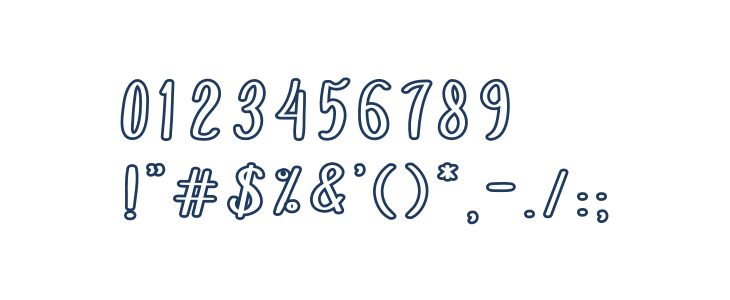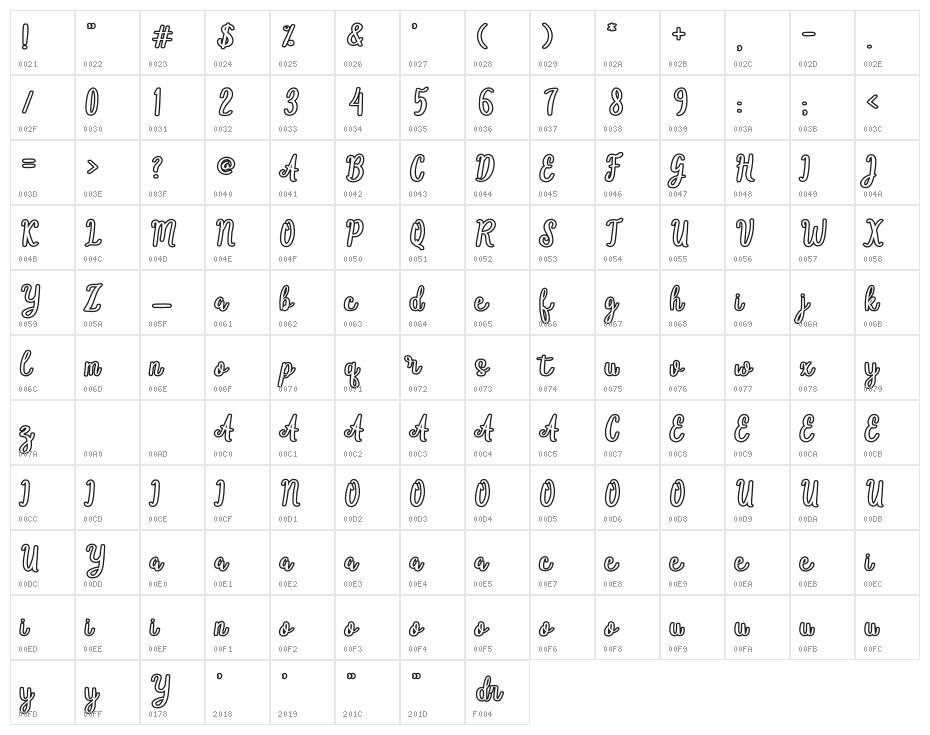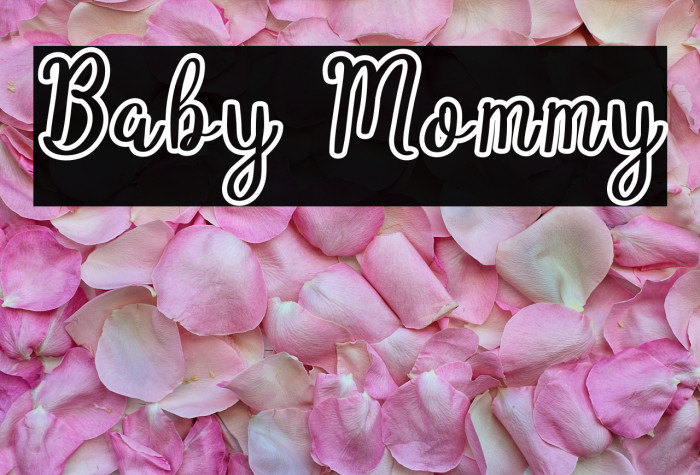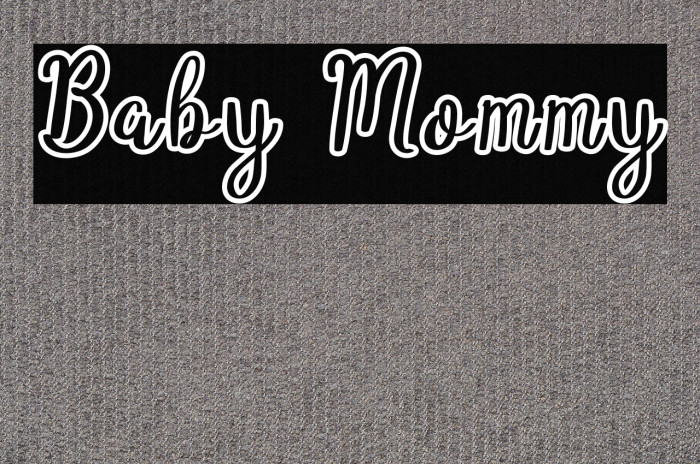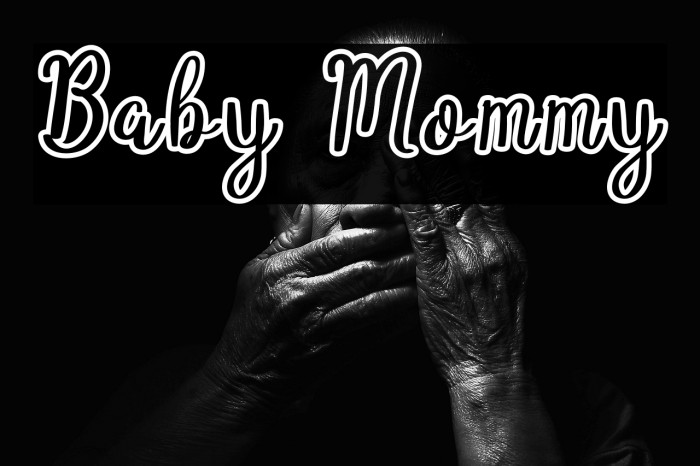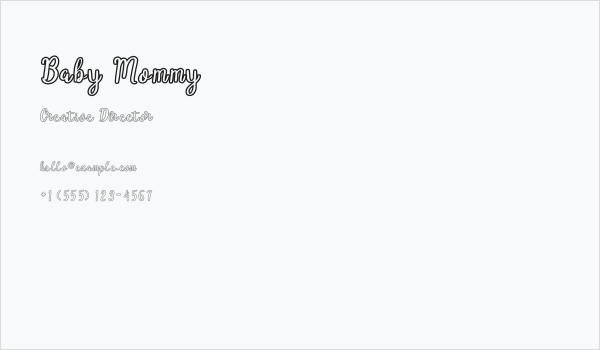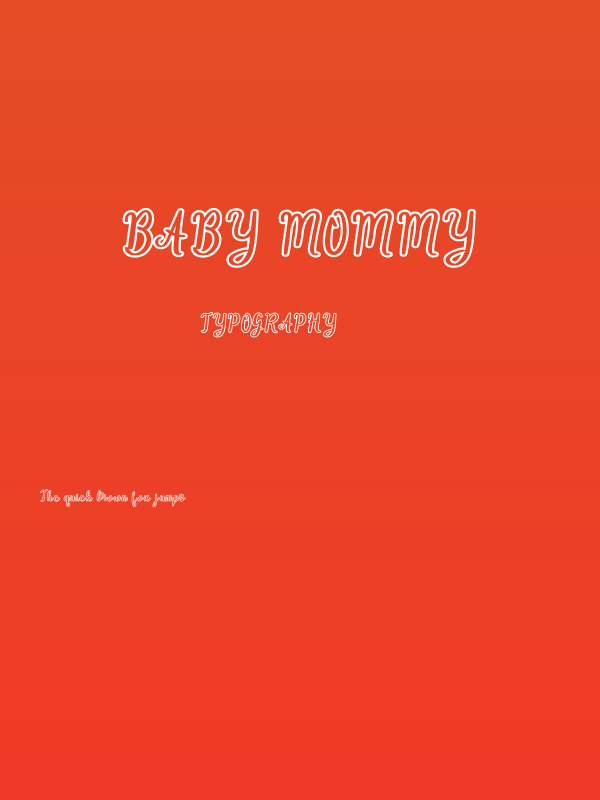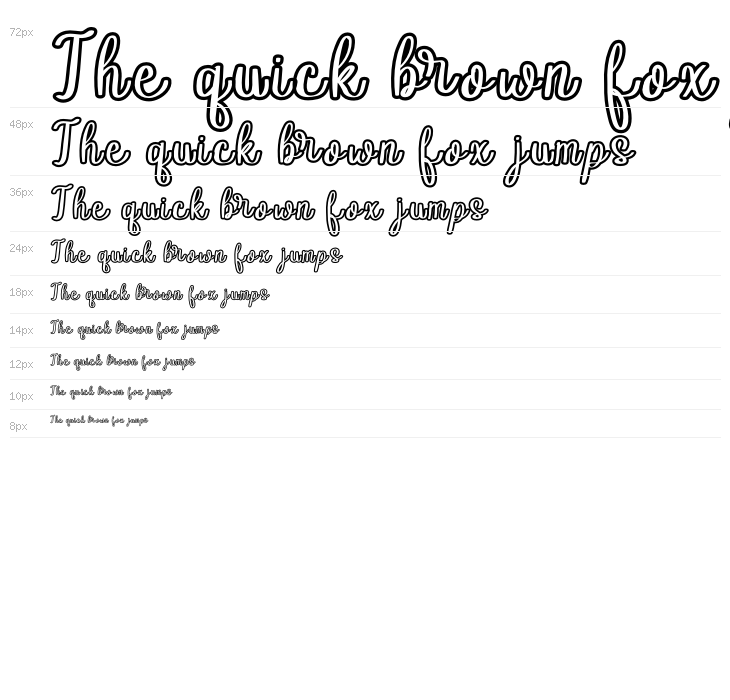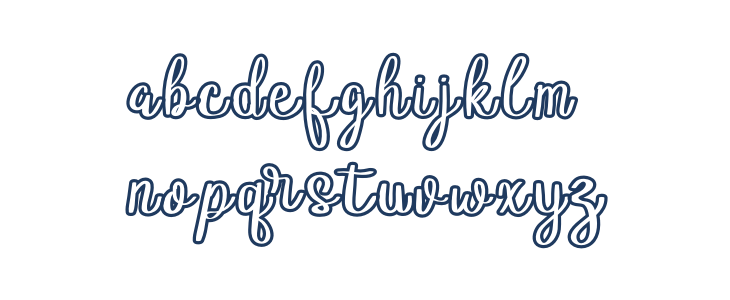
Baby Mommy Font
Baby Mommy Description
This playful and whimsical font features a bold, script style with a charming hand-drawn appearance. The letters are outlined, giving them a distinct and eye-catching look. The uppercase and lowercase letters flow smoothly with a consistent stroke width, creating a harmonious and friendly vibe. The numbers and special characters maintain the same playful style, making this font versatile for various design needs. Its unique outline adds a layer of depth, making it stand out in any project.